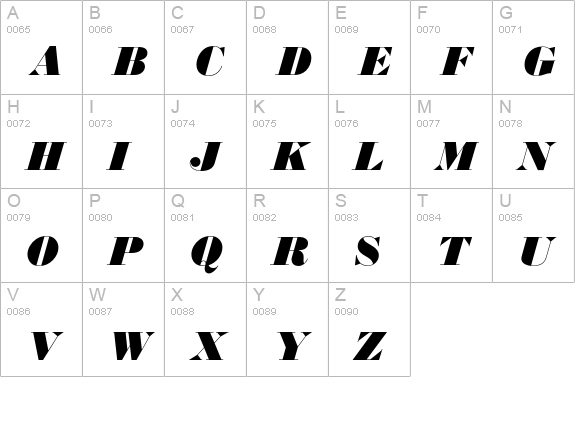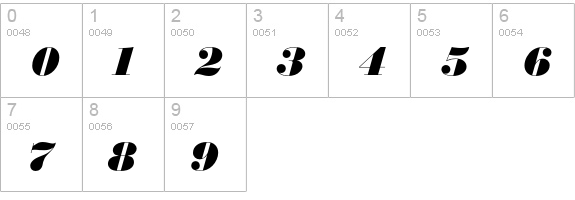
Bodoni Ultra Bold Italic Font Details
Bodoni Ultra Bold Italic is an extreme-weight, display, italic variant in the Bodoni typeface family \xE2\x80\x94 well suited to extreme display use where maximum visual weight is required.
Bodoni Ultra Bold Italic font exudes elegance and sophistication with its bold, slanted design. The sharp and distinct letterforms of this typeface make a striking statement, perfect for headlines, titles, and branding projects. The sleek curves and high contrast of Bodoni Ultra Bold Italic add a touch of modernity and luxury to any design. And the best part? This stunning font is available for free download at FontsMarket.com. So, whether you're working on a high-end fashion magazine, a luxury brand identity, or a sleek advertising campaign, Bodoni Ultra Bold Italic is the perfect choice to make your designs stand out. Download it now and elevate your typographic game with this exquisite typeface.